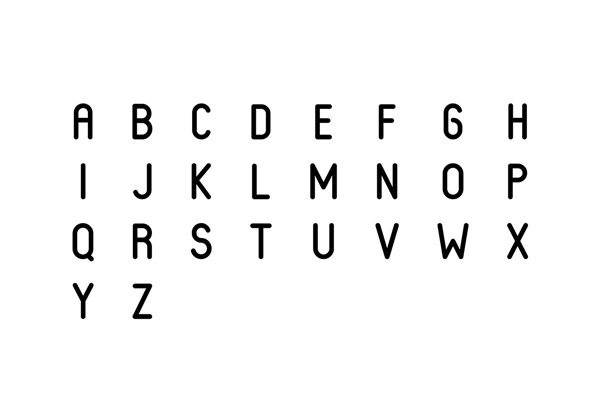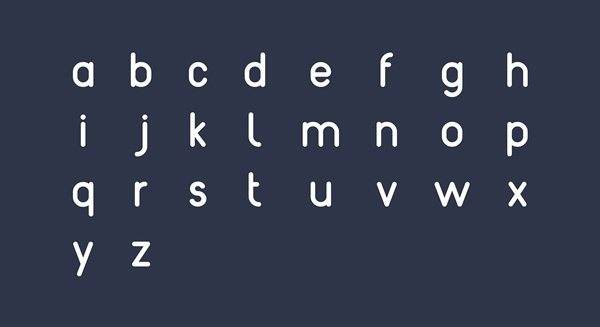
Reef font
Free font pack for commercial and personal use! It’s strength lies in simplicity and construction. Designed by Gatis Vilaks and Evita Vilaka.